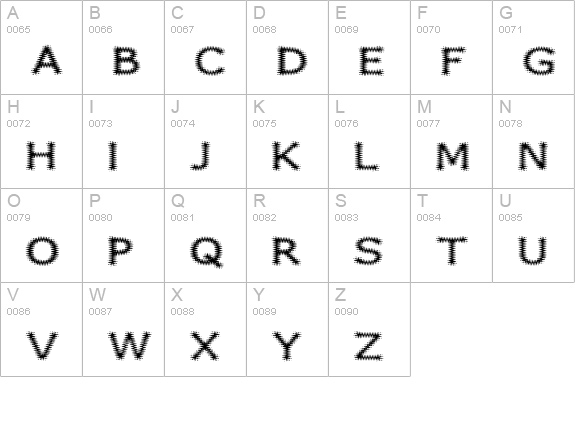
The Fuzzy Xmas font is a delightful and whimsical typeface perfect for adding a touch of festive charm to your holiday designs. With its fuzzy edges and playful curves, this font captures the joy and warmth of the Christmas season. Whether you're creating greeting cards, invitations, or social media graphics, Fuzzy Xmas will bring a fun and cozy vibe to your projects. Best of all, Fuzzy Xmas is available for free download at FontsMarket.com! Simply visit the website to access this charming font and start spreading holiday cheer with your designs. Don't miss the opportunity to add a touch of fuzzy magic to your creations this Christmas season with the Fuzzy Xmas font.